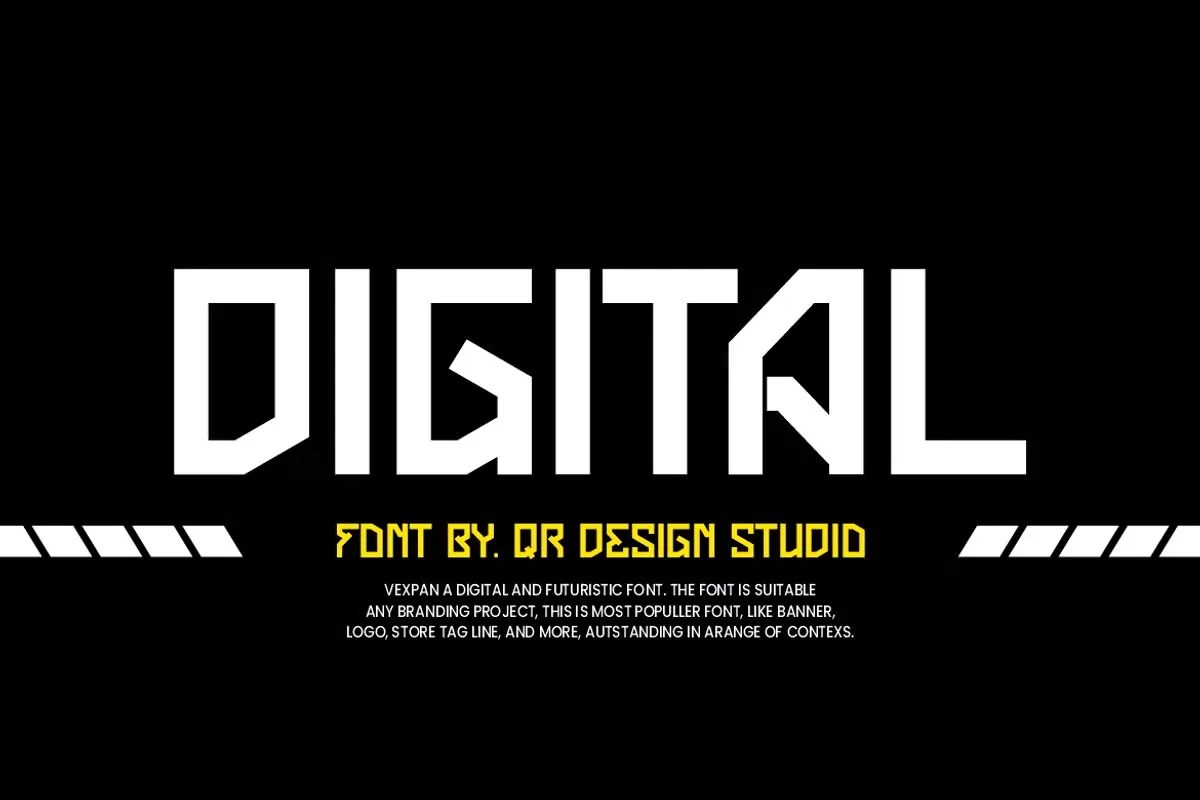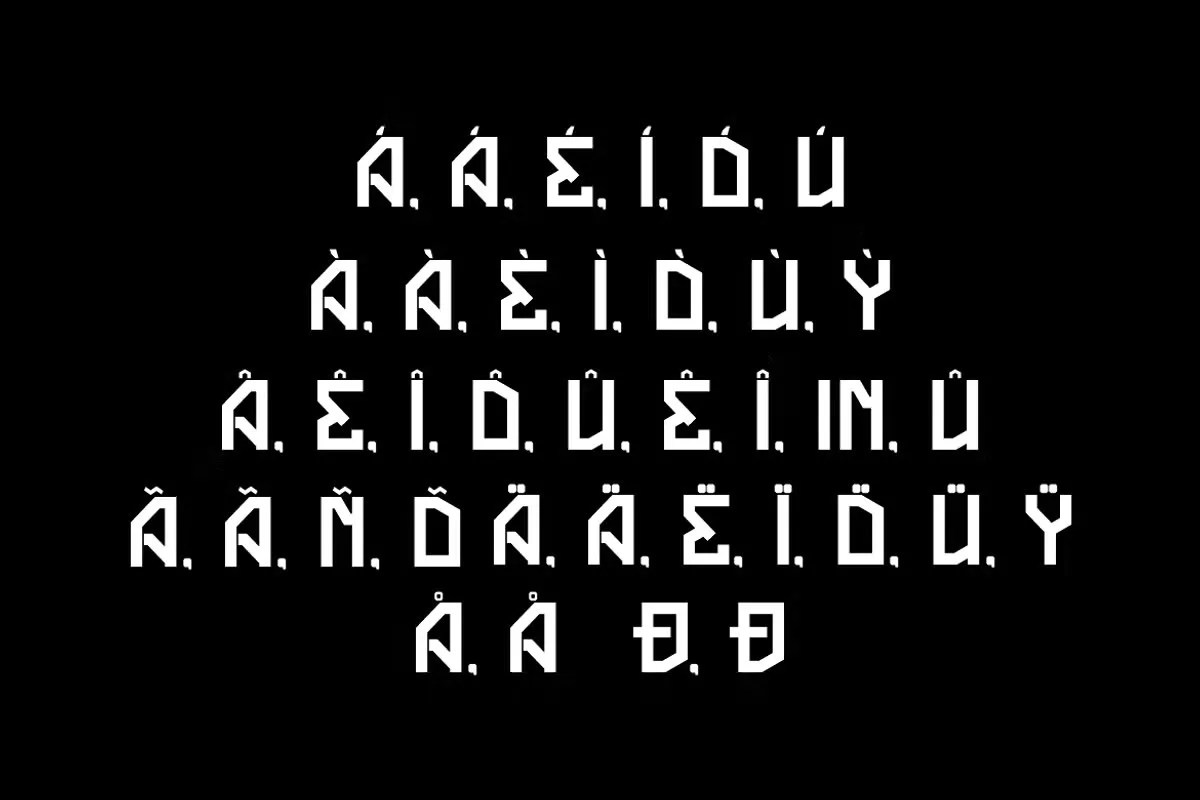
Vexpan by QR Design Studio. This is a clean and impactful wide sans serif font that offers a spacious, extended style for your designs. The font commands attention through its sheer breadth and stability. It brings a cinematic and sophisticated feel to any layout. Vexpan is ideal for projects that need a strong, horizontal presence, filling space with confidence and modern clarity.
This font is a superb choice for a variety of high-end projects. Specifically, its expansive nature is perfect for cinematic titles and film posters. It creates an immediate sense of scale and drama. Furthermore, this wide sans serif font is a great asset for corporate and tech branding. It can convey a sense of stability and forward-thinking vision for a company logo or website header. Use it for impactful headlines and presentations that need to look polished and deliberate.
• Clean and wide sans serif style
• Features extended, spacious letterforms
• Ideal for cinematic titles, tech logos, and headlines
• Provides a stable and modern aesthetic